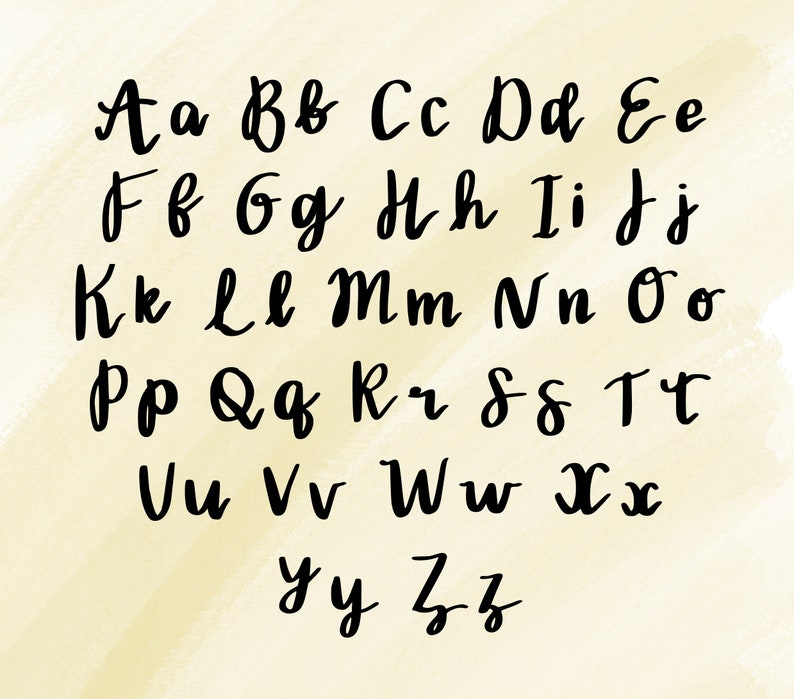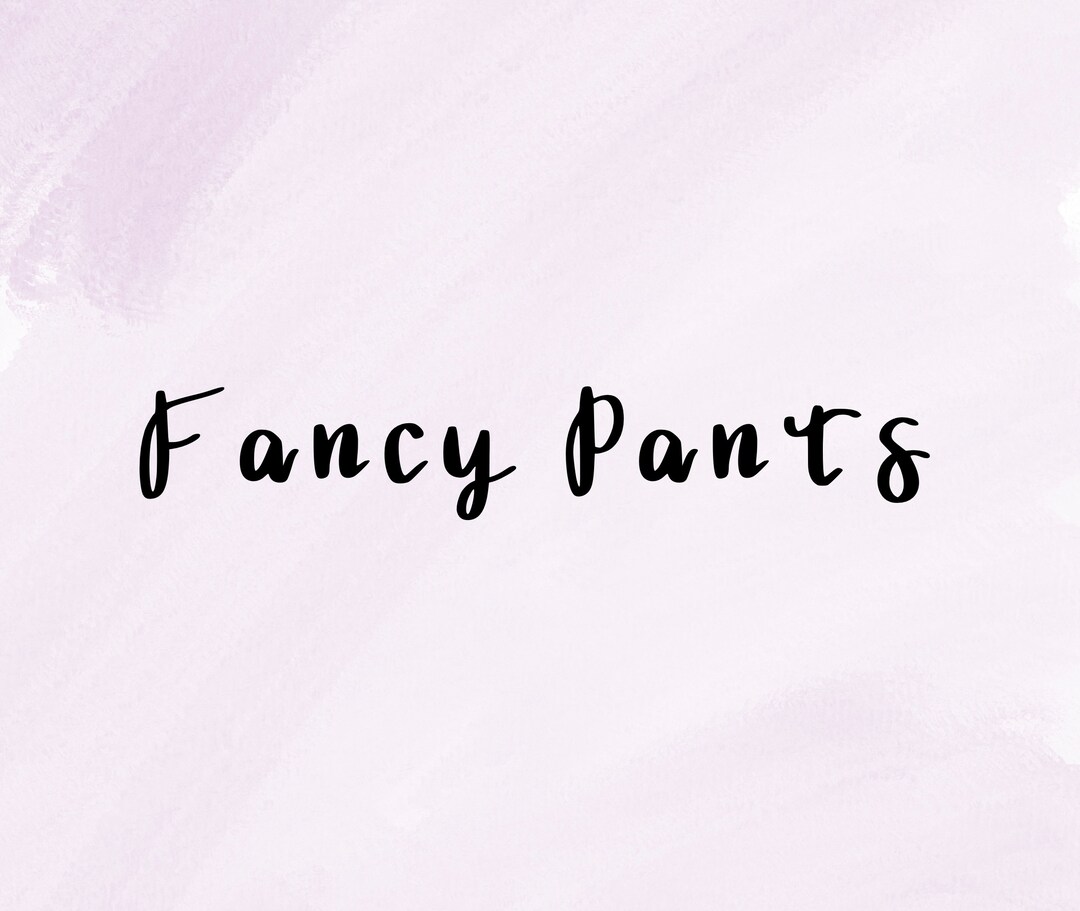
Fancy Pants Font . 171,171 downloads (14 yesterday) 100% free. Parker seems to have specialized in fussy fonts. Fancy pants font is free for both personel and commercial usages. Free download of fancy pants font family with 2 styles. Fancy pants contains 2 styles and family package options. Fancy pants à € by nick's fonts. Fancy pants by christina smith. Download and install the fancy pants font by nicks fonts. Fancy pants font is a fancy, retro font designed by nicks fonts. The fancy pants font has been downloaded 10,263 times. Released in 1999 by nick's fonts and licensed for personal and. 15,645 downloads (1 yesterday) demo. Download fancy pants nf font · free for commercial use · the erstwhile wadsworth a.
Download fancy pants nf font · free for commercial use · the erstwhile wadsworth a. Fancy pants font is a fancy, retro font designed by nicks fonts. Free download of fancy pants font family with 2 styles. Fancy pants font is free for both personel and commercial usages. Fancy pants by christina smith. Download and install the fancy pants font by nicks fonts. Fancy pants contains 2 styles and family package options. The fancy pants font has been downloaded 10,263 times. Fancy pants à € by nick's fonts. Released in 1999 by nick's fonts and licensed for personal and.
Fancy Pants Embroidery font from Applique Corner Embroidery fonts
Fancy Pants Font Parker seems to have specialized in fussy fonts. Fancy pants font is free for both personel and commercial usages. Fancy pants à € by nick's fonts. 171,171 downloads (14 yesterday) 100% free. Released in 1999 by nick's fonts and licensed for personal and. Parker seems to have specialized in fussy fonts. Fancy pants contains 2 styles and family package options. The fancy pants font has been downloaded 10,263 times. Download and install the fancy pants font by nicks fonts. 15,645 downloads (1 yesterday) demo. Download fancy pants nf font · free for commercial use · the erstwhile wadsworth a. Fancy pants by christina smith. Fancy pants font is a fancy, retro font designed by nicks fonts. Free download of fancy pants font family with 2 styles.
Fancy Pants Embroidery font from Applique Corner Embroidery fonts Fancy Pants Font Download fancy pants nf font · free for commercial use · the erstwhile wadsworth a. Parker seems to have specialized in fussy fonts. Fancy pants font is free for both personel and commercial usages. Fancy pants à € by nick's fonts. The fancy pants font has been downloaded 10,263 times. Fancy pants font is a fancy, retro font designed by. Fancy Pants Font.
Fancy Pants Font by Freebies · Creative Fabrica Fancy Pants Font Free download of fancy pants font family with 2 styles. Fancy pants font is free for both personel and commercial usages. Fancy pants font is a fancy, retro font designed by nicks fonts. Released in 1999 by nick's fonts and licensed for personal and. Fancy pants à € by nick's fonts. Download fancy pants nf font · free for commercial. Fancy Pants Font.
Fancy Pants Font Prismpixel Medium Fancy Pants Font The fancy pants font has been downloaded 10,263 times. Fancy pants contains 2 styles and family package options. 15,645 downloads (1 yesterday) demo. Fancy pants à € by nick's fonts. Parker seems to have specialized in fussy fonts. Released in 1999 by nick's fonts and licensed for personal and. 171,171 downloads (14 yesterday) 100% free. Free download of fancy pants. Fancy Pants Font.
Stretchy Pants Font in truetype .ttf opentype .otf format free and easy Fancy Pants Font Fancy pants contains 2 styles and family package options. Fancy pants à € by nick's fonts. The fancy pants font has been downloaded 10,263 times. Fancy pants by christina smith. Fancy pants font is a fancy, retro font designed by nicks fonts. Download and install the fancy pants font by nicks fonts. Parker seems to have specialized in fussy fonts.. Fancy Pants Font.
Fancy Pants Typeface Sans Serif Fonts Creative Market Fancy Pants Font 171,171 downloads (14 yesterday) 100% free. Free download of fancy pants font family with 2 styles. The fancy pants font has been downloaded 10,263 times. Parker seems to have specialized in fussy fonts. Fancy pants font is a fancy, retro font designed by nicks fonts. Download fancy pants nf font · free for commercial use · the erstwhile wadsworth a.. Fancy Pants Font.
Fancy Pants Font Fancy pants font is a fancy, retro font designed by nicks fonts. Fancy pants by christina smith. Free download of fancy pants font family with 2 styles. Download fancy pants nf font · free for commercial use · the erstwhile wadsworth a. Download and install the fancy pants font by nicks fonts. 171,171 downloads (14 yesterday) 100% free. Released in. Fancy Pants Font.
Fancy Pants Font Download Fancy Pants Font Released in 1999 by nick's fonts and licensed for personal and. 15,645 downloads (1 yesterday) demo. Fancy pants font is free for both personel and commercial usages. Free download of fancy pants font family with 2 styles. Fancy pants by christina smith. Download and install the fancy pants font by nicks fonts. Fancy pants font is a fancy, retro font. Fancy Pants Font.
Fancy Pants Nf Font FREE Download & Similar Fonts FontGet Fancy Pants Font Fancy pants font is a fancy, retro font designed by nicks fonts. The fancy pants font has been downloaded 10,263 times. Free download of fancy pants font family with 2 styles. Fancy pants font is free for both personel and commercial usages. Fancy pants contains 2 styles and family package options. 15,645 downloads (1 yesterday) demo. Download and install the. Fancy Pants Font.
Fancy Pants Font Machine Embroidery Design Fonts Download Fancy Pants Font Fancy pants by christina smith. Fancy pants font is a fancy, retro font designed by nicks fonts. Fancy pants font is free for both personel and commercial usages. 15,645 downloads (1 yesterday) demo. Download fancy pants nf font · free for commercial use · the erstwhile wadsworth a. Download and install the fancy pants font by nicks fonts. Fancy pants. Fancy Pants Font.